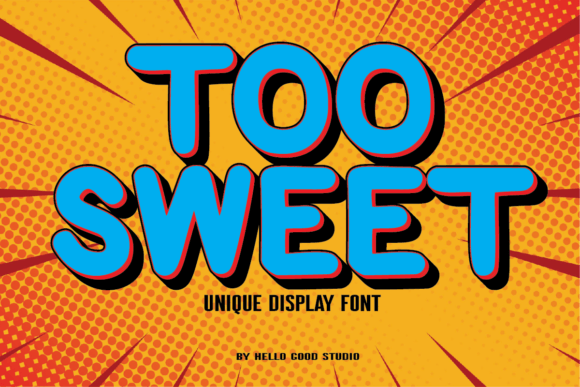
Introducing Too Sweet Font: The Ultimate Addition to Your Creative Projects
In the world of typography, fonts play a crucial role in conveying the tone and personality of a creative project. Whether you’re designing a logo, creating a children’s book, or crafting a social media post, the right font can make all the difference. If you’re looking for a font that embodies the spirit of childhood and adds a playful touch to your designs, look no further than Too Sweet Font. In this article, we’ll explore the enchanting world of Too Sweet Font and discover how it can elevate your creative projects to new heights.
What is Too Sweet Font?
Too Sweet Font is a captivating typeface that is designed to bring a sense of whimsy and delight to any creative project. Its lighthearted and playful design makes it perfect for projects that require a touch of childhood magic. The font features soft curves and friendly forms that make it not only visually appealing but also incredibly easy to read. Whether you’re designing for kids or adults, Too Sweet Font is sure to captivate your audience and leave a lasting impression.
The Design of Too Sweet Font
The design of Too Sweet Font is where its true magic lies. Each character is crafted with meticulous attention to detail, exuding a delightful charm that instantly appeals to kids and the young at heart. The letters are infused with a sprinkle of magic, featuring soft curves and friendly forms that make them not only captivating but also incredibly easy to read. The font’s design is perfect for a variety of creative projects, from children’s books and educational materials to branding and advertising.
Key Features of Too Sweet Font
So, what makes Too Sweet Font so special? Here are some of its key features:
- Playful Design: Too Sweet Font features a lighthearted and playful design that is perfect for creative projects that require a touch of childhood magic.
- Easy to Read: The font’s soft curves and friendly forms make it incredibly easy to read, even for young children.
- Whimsical Charm: Each character is crafted with meticulous attention to detail, exuding a delightful charm that instantly appeals to kids and the young at heart.
- Versatile: Too Sweet Font is perfect for a variety of creative projects, from children’s books and educational materials to branding and advertising.
Uses of Too Sweet Font
Too Sweet Font is a versatile typeface that can be used in a variety of creative projects. Here are some ideas to get you started:
- Children’s Books: Too Sweet Font is perfect for children’s books, adding a touch of whimsy and delight to your story.
- Educational Materials: The font’s playful design makes it ideal for educational materials, such as worksheets, activity sheets, and educational posters.
- Branding and Advertising: Too Sweet Font can add a playful touch to your brand or advertising campaign, making it perfect for companies that want to appeal to a younger audience.
- Social Media: Use Too Sweet Font to create engaging social media posts that are sure to capture the attention of your followers.
Benefits of Using Too Sweet Font
So, why should you use Too Sweet Font in your creative projects? Here are some benefits:
- Adds a Touch of Whimsy: Too Sweet Font adds a touch of whimsy and delight to your creative project, making it perfect for projects that require a playful touch.
- Increases Engagement: The font’s playful design can increase engagement and capture the attention of your audience.
- Perfect for Kids: Too Sweet Font is perfect for projects that are designed for kids, making it a great choice for children’s books, educational materials, and kids’ websites.
- Easy to Read: The font’s easy-to-read design makes it perfect for projects that require a clear and readable font.
In conclusion, Too Sweet Font is a captivating typeface that is designed to bring a sense of whimsy and delight to any creative project. Its lighthearted and playful design makes it perfect for projects that require a touch of childhood magic. With its easy-to-read design and versatile uses, Too Sweet Font is a great addition to any creative project. Whether you’re designing for kids or adults, Too Sweet Font is sure to captivate your audience and leave a lasting impression.
Here are some frequently asked questions about Too Sweet Font:
- What is Too Sweet Font?
- Too Sweet Font is a captivating typeface that is designed to bring a sense of whimsy and delight to any creative project.
- Is Too Sweet Font easy to read?
- Yes, Too Sweet Font is incredibly easy to read, making it perfect for projects that require a clear and readable font.